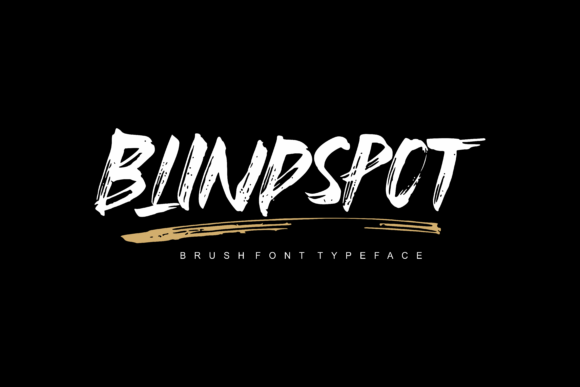
Introducing Blindspot, the Enigmatic Script Font That Will Ignite Your Imagination!
Prepare to be mesmerized by Blindspot, a breathtaking handwritten font that exudes raw energy and effortless authenticity. Inspired by the quick, confident strokes of a skilled calligrapher, Blindspot captivates with its supercharged brushstrokes, adding an air of excitement and spontaneity to your designs.
Crafted by the visionary minds at Willetter Studio, Blindspot boasts a captivating script that dances across your screen, captivating your audience with its enigmatic charm. Its unique flow and effortless style make it the perfect choice for adding a touch of intrigue and personality to your projects.
But Blindspot isn't just captivating - it's also incredibly versatile. Whether you're crafting elegant invitations, creating eye-catching social media posts, or designing stunning logos, Blindspot's versatility makes it an indispensable tool for any creative arsenal. Its ability to effortlessly adapt to a wide range of designs makes it the perfect solution for a multitude of projects.
And to take your designs to the next level, Blindspot comes complete with a mesmerizing collection of extra swashes. These exquisite embellishments add an extra layer of sophistication and flair, allowing you to create designs that are truly unforgettable.
If you're searching for a font that will ignite your creativity, evoke powerful emotions, and leave a lasting impression, look no further than Blindspot. Its enigmatic script, versatile nature, and captivating swashes make it the perfect choice for designers seeking to make a bold statement.
Unlock the captivating power of Blindspot today and let your designs speak volumes with effortless authenticity, boundless energy, and unwavering style!